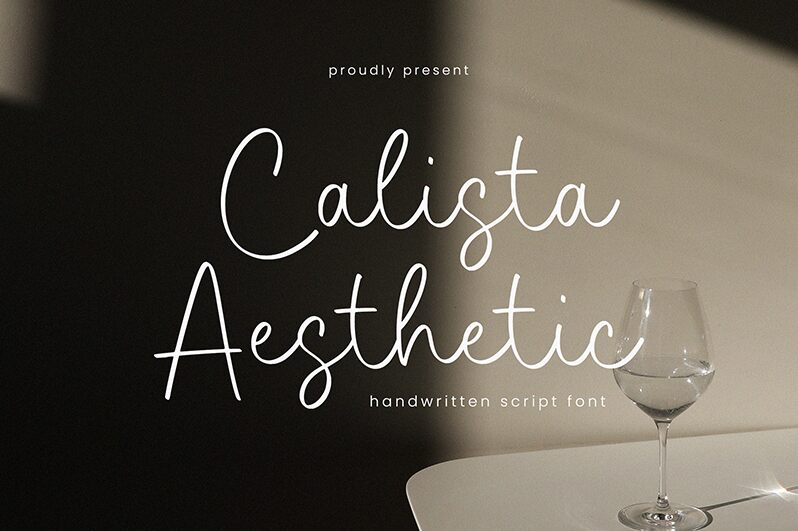
Calista Aesthetic
Calista Aesthetic font is a handwritten design with a classy and subtle look. It comes in a light weight that makes it delicate, while its flowing style makes it highly elegant. The sophisticated appearance of the font naturally combines the effects of modern script typography with raw creative handwriting, resulting in a gorgeous visual effect.